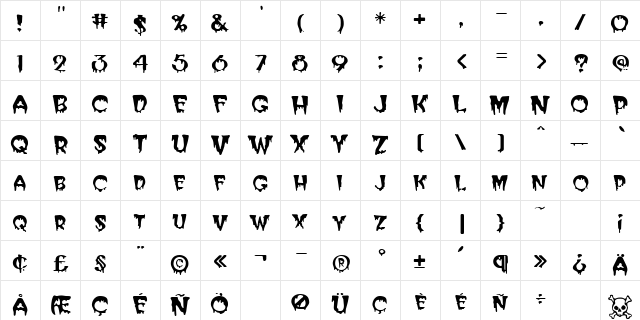
PHILIP Regular
Design Context for PHILIP Typeface
PHILIP is a composed and adaptable typeface that performs quietly and consistently across a wide range of design contexts.